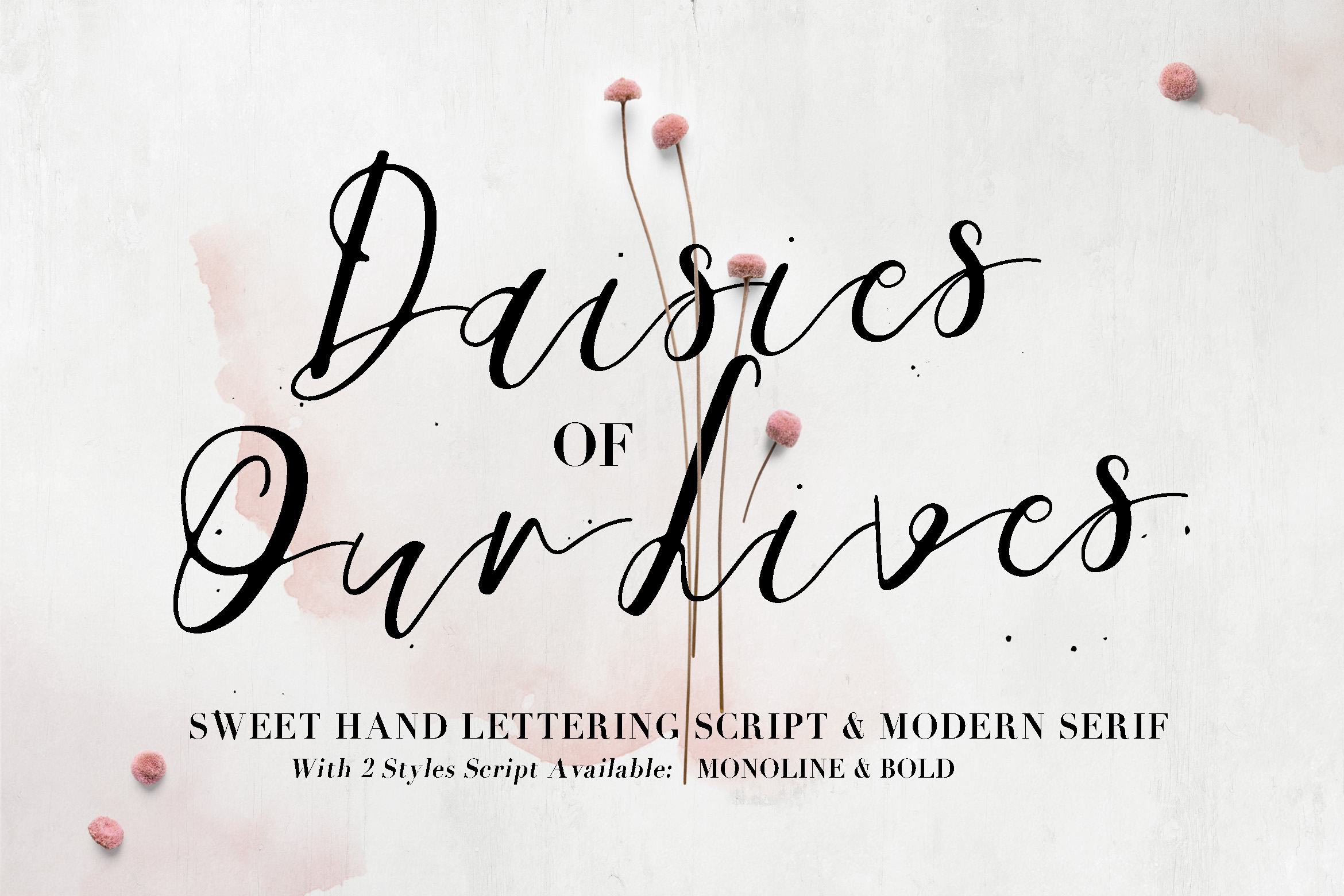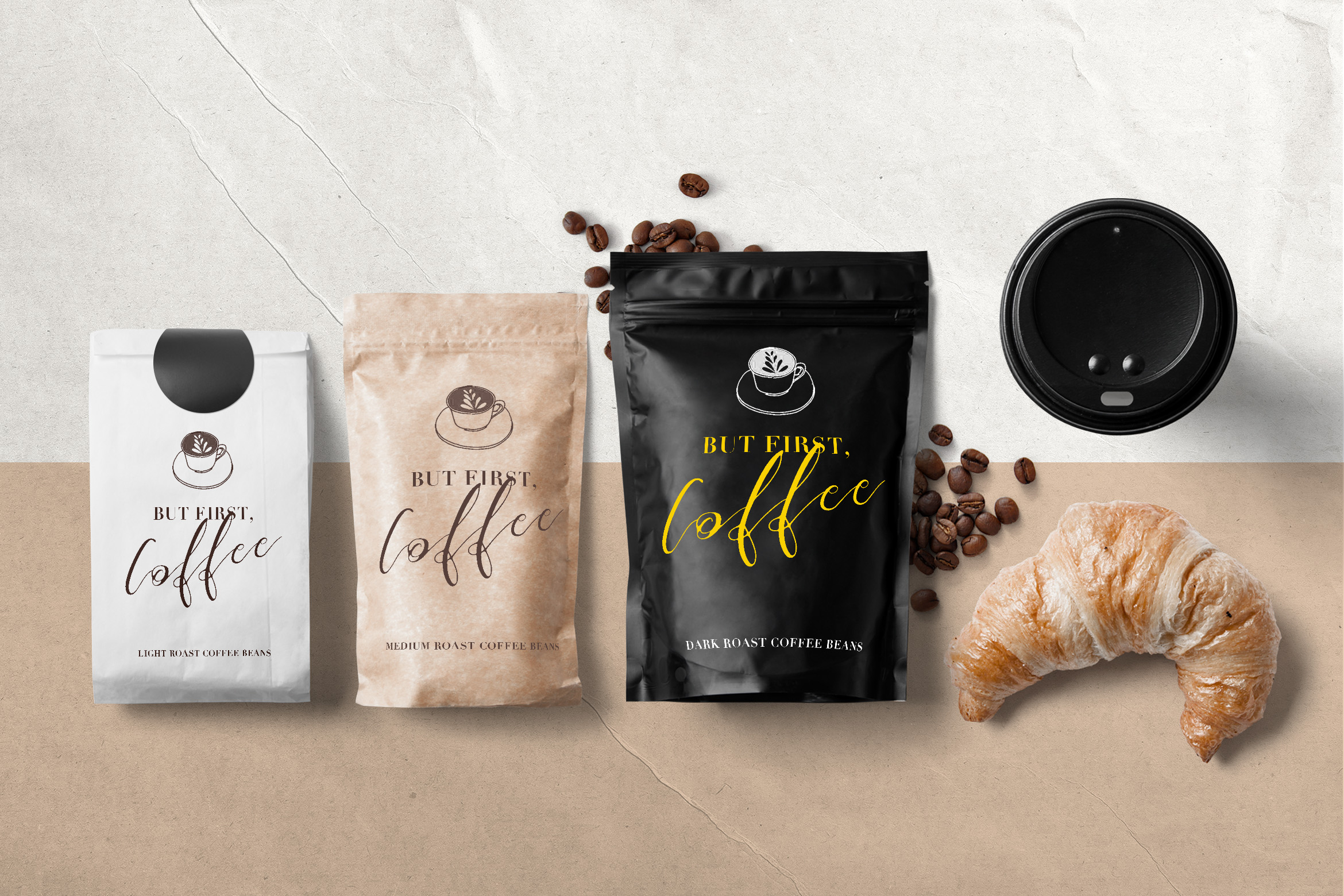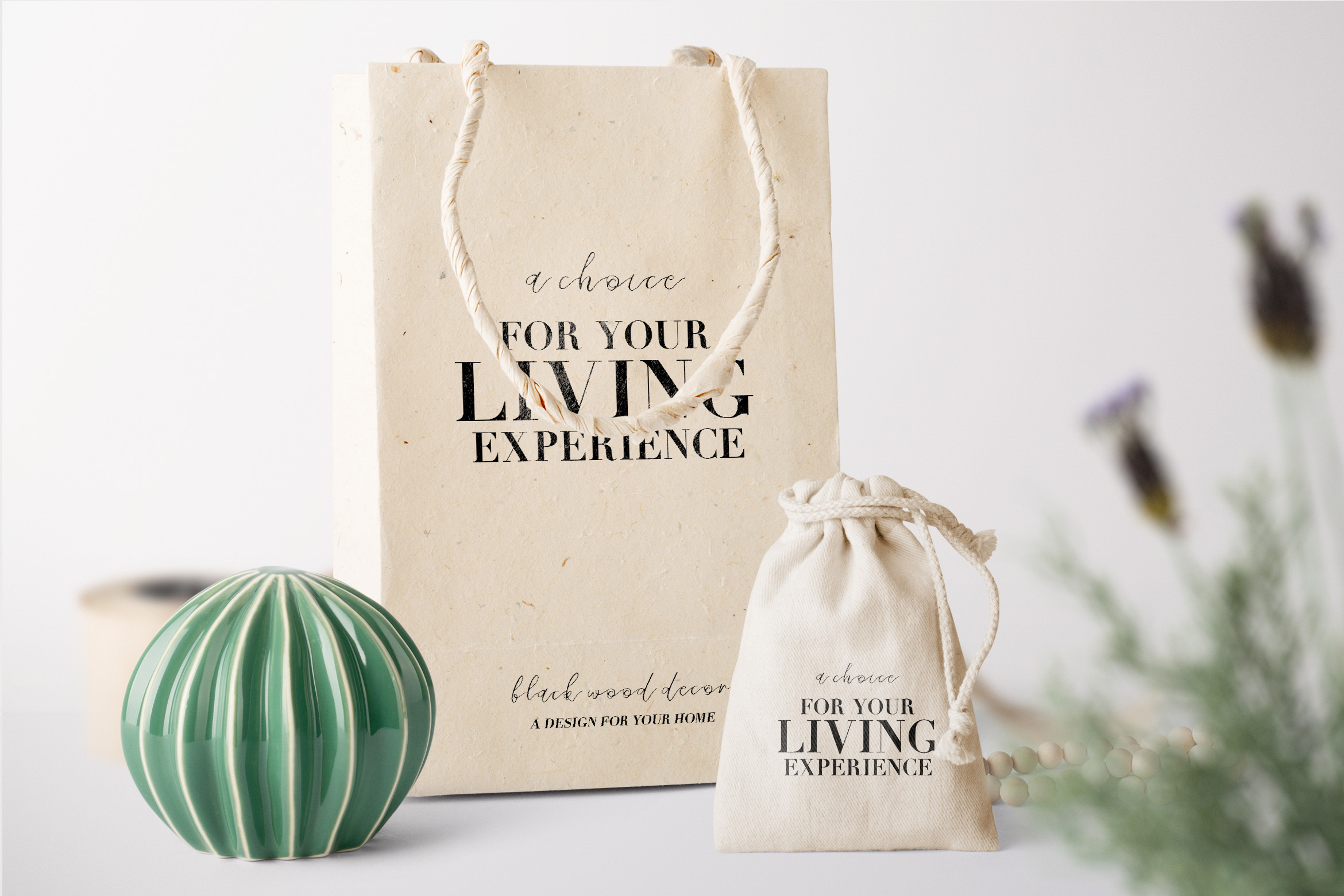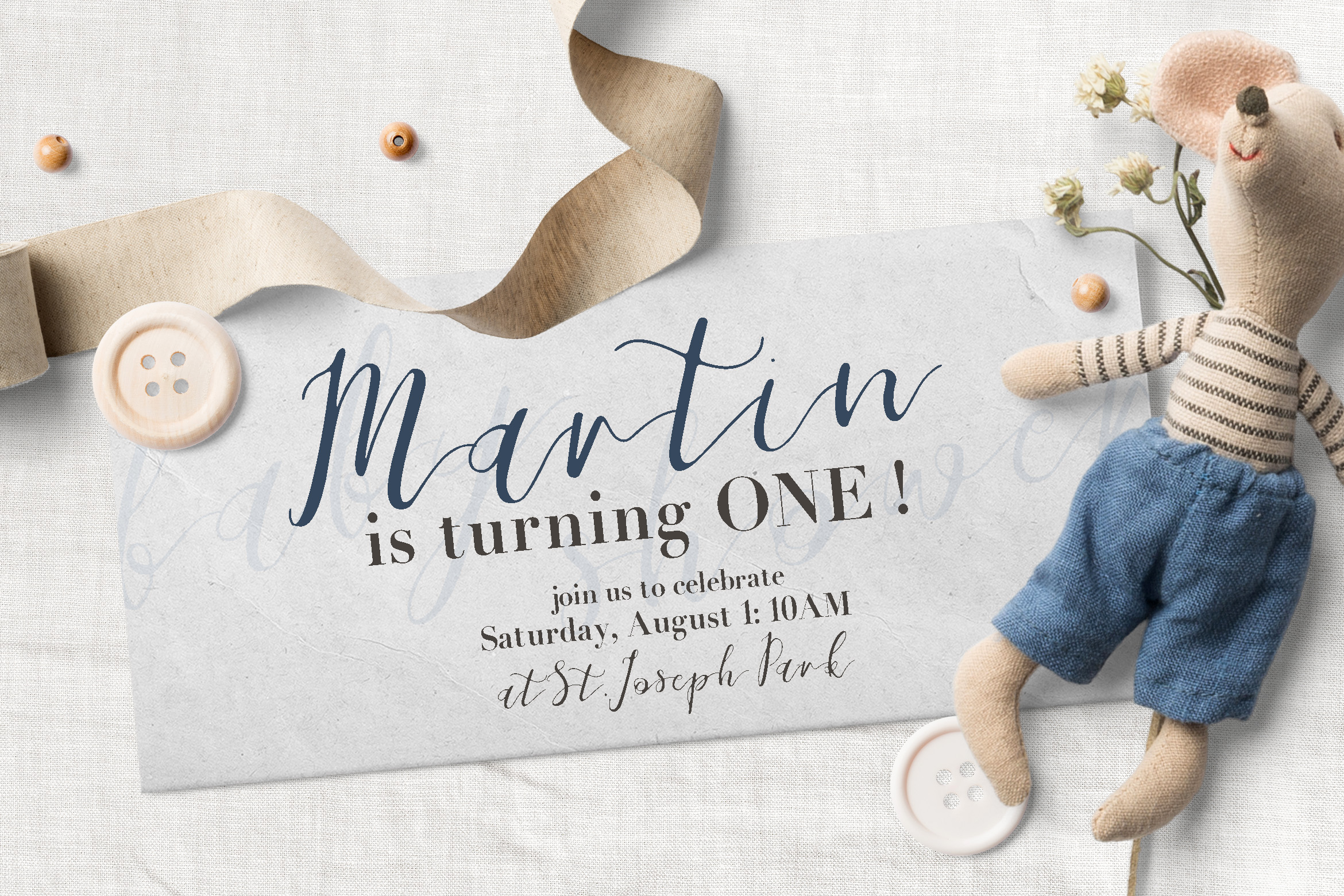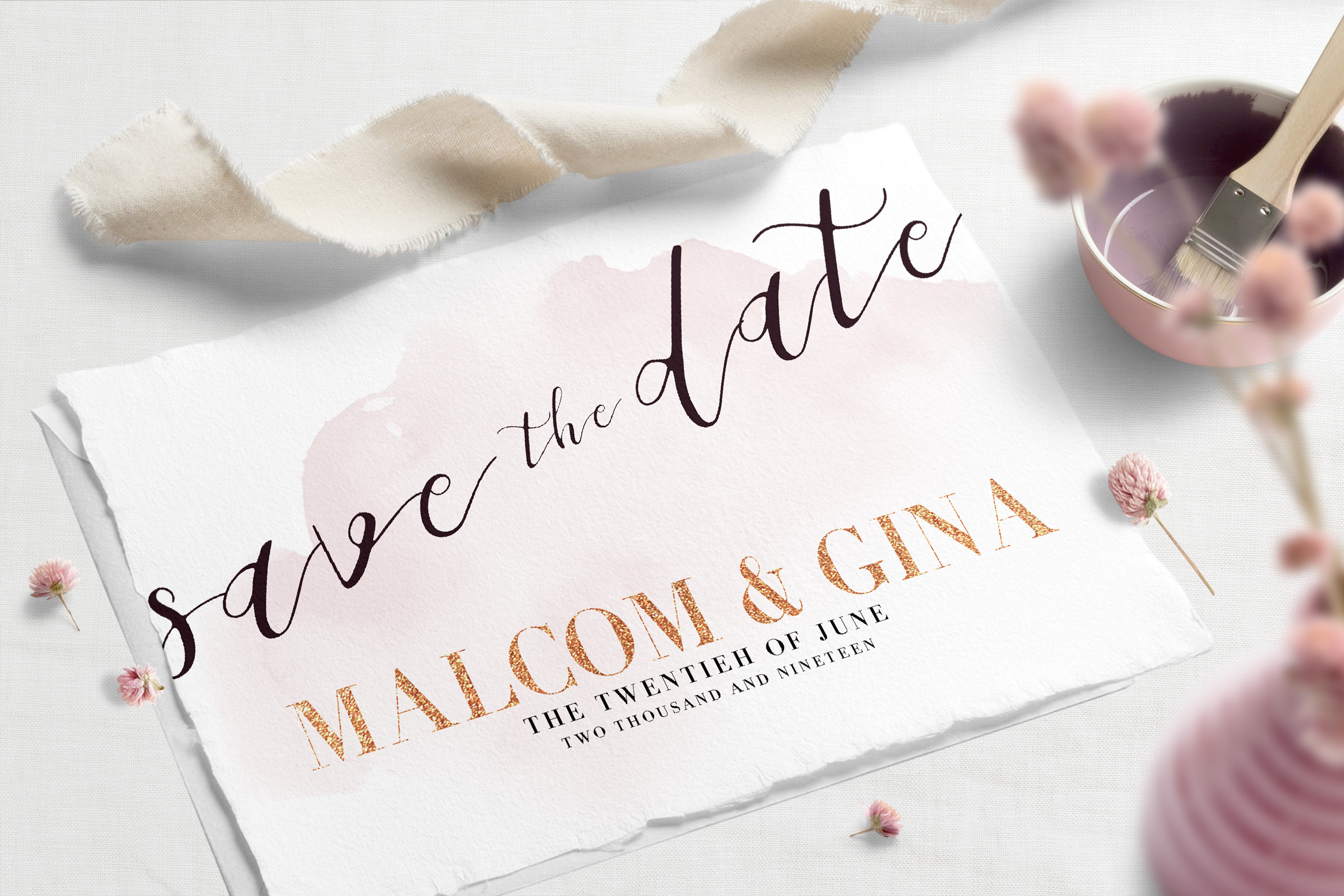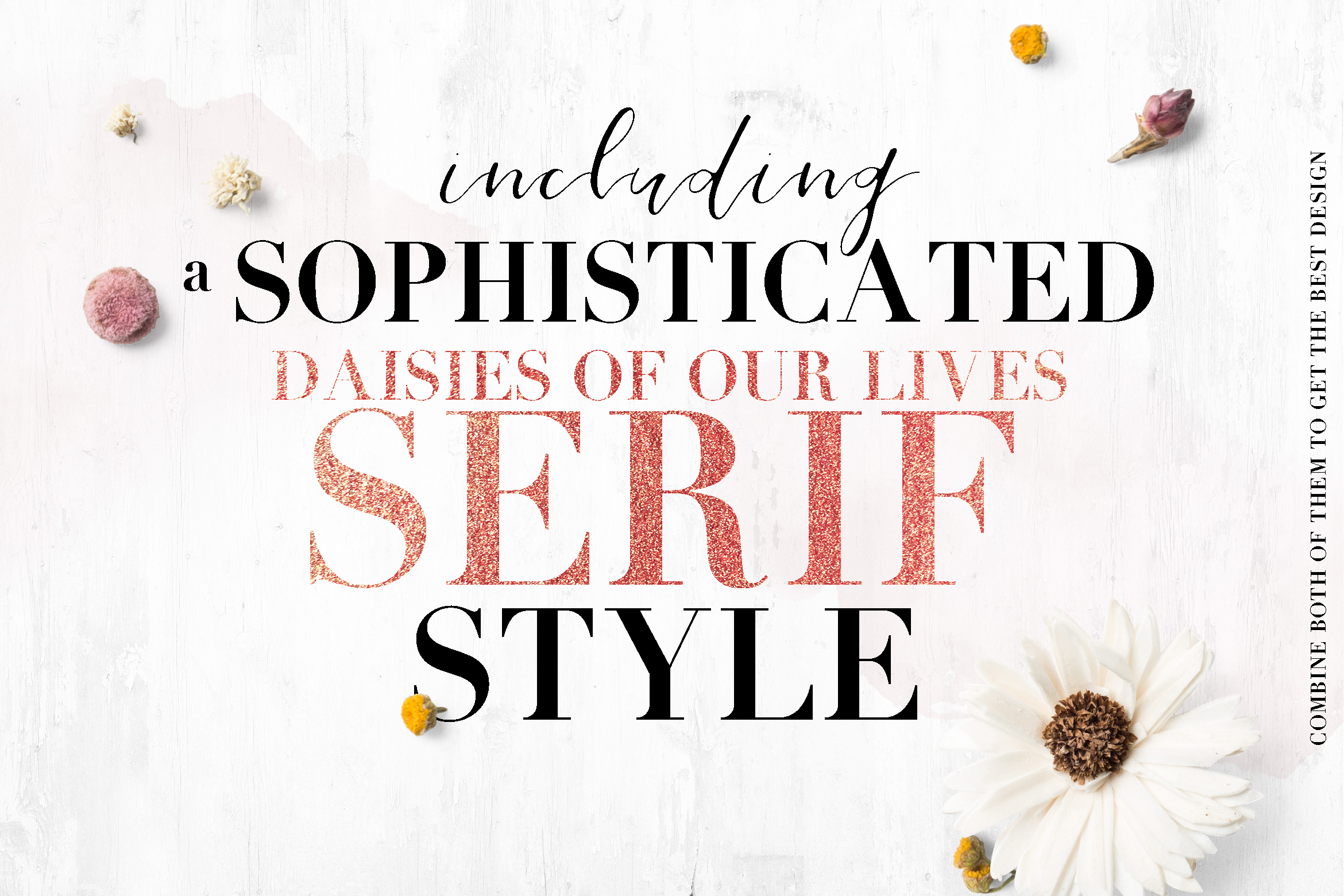
Daisies of Our Lives Font
About Daisies of Our Lives Font
Daisies of Our Lives is a sophisticated typeface that contains hand-lettering styled font and modern serif all in 1 family. You can use the font for multiple purposes in a wide array of creative projects!
To make Daisies of Our Lives Serif more stylish, the script comes in 2 types: thin-monoline & bold.